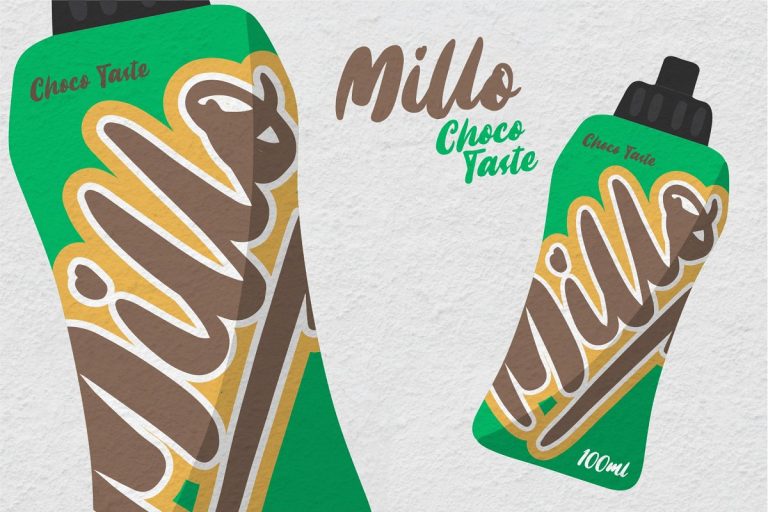
Millo Brush Font
Introducing Millo font. This is a fun brush font. With a touch of rough brush and thick lines, It is here to meet font users. Especially you who like adventure style and handdrawn. Very suitable! Millo Font designed and shared by Garisman Std. Millo Brush Font – Inspired from the chocolate drink style for make a great your work. Very versatile for poster, label, apparel, t-shirt, branding, packaging, logotype, and many more. With additional swashes (use with opentype numeral), you can make different style!